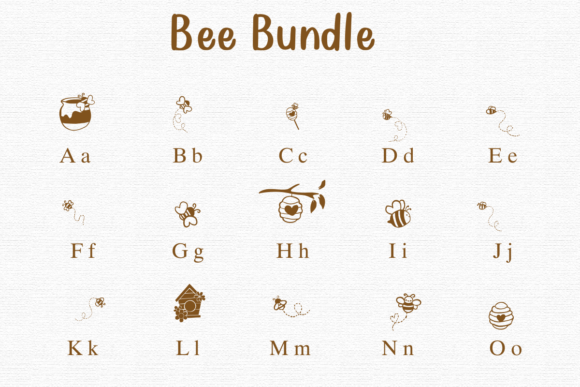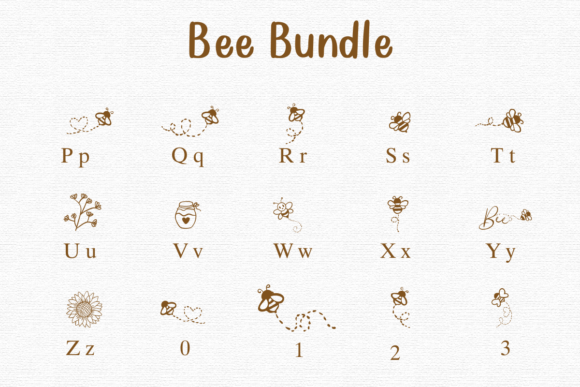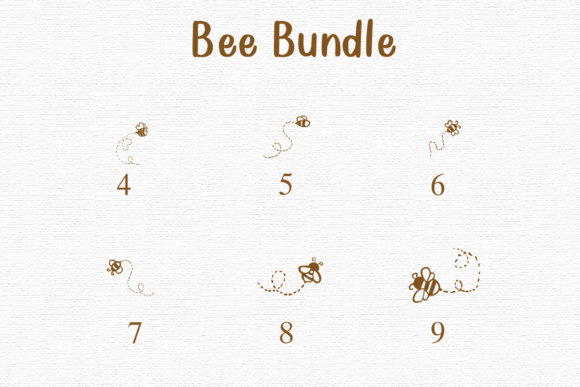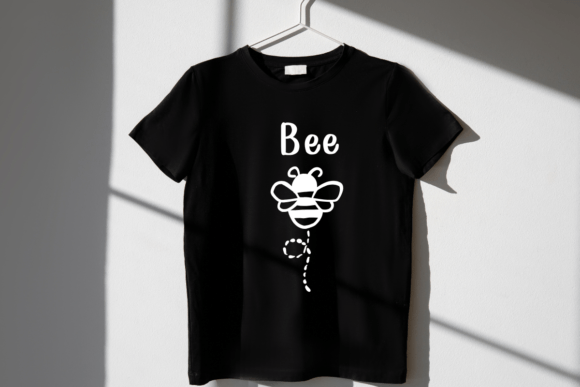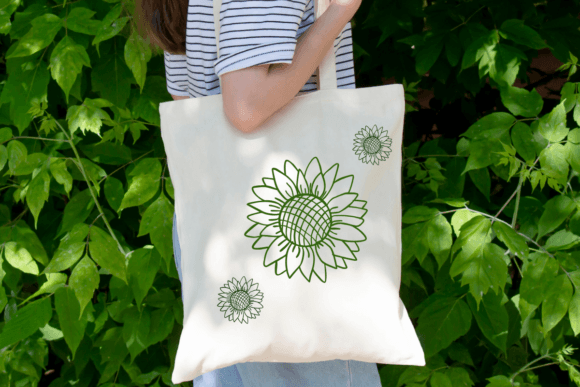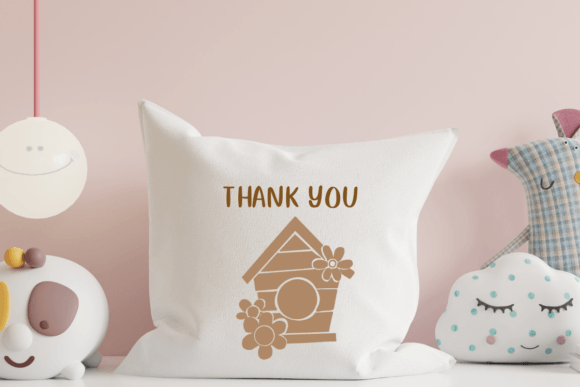
Bee Bundle Font: Add a Sweet Touch to Your Designs with this Playful Dingbat Font
Are you looking for a unique and whimsical font to add a touch of personality to your designs? Look no further than the Bee Bundle Font! This playful dingbat font features a collection of cute, flying bees that are sure to bring a smile to your face. In this article, we’ll take a closer look at the Bee Bundle Font, its features, and how you can use it to elevate your designs.
What is Bee Bundle Font?
Bee Bundle Font is a dingbat font that features a set of adorable flying bees. Each character in this font is a different bee design, ranging from simple and minimalist to more intricate and detailed. The font is perfect for designers, crafters, and anyone looking to add a touch of whimsy to their projects.
Key Features of Bee Bundle Font
- Playful and Whimsical Designs: Each character in the Bee Bundle Font is a unique bee design, featuring cute and flying bees that are sure to add a touch of personality to your designs.
- Dingbat Font: The Bee Bundle Font is a dingbat font, which means that each character is a graphical representation of a bee, rather than a traditional letter or symbol.
- Perfect for Designers and Crafters: The Bee Bundle Font is ideal for designers, crafters, and anyone looking to add a touch of whimsy to their projects, including party decorations, gift tags, and more.
- Easily Customizable: The Bee Bundle Font can be easily customized to fit your design needs, including changing colors, sizes, and more.
How to Use Bee Bundle Font in Your Designs
The Bee Bundle Font is easy to use and can be incorporated into a variety of design projects. Here are a few ideas to get you started:
- Party Decorations: Use the Bee Bundle Font to create custom party decorations, including banners, garlands, and more.
- Gift Tags: Add a personal touch to your gifts with custom gift tags featuring the Bee Bundle Font.
- Social Media Graphics: Use the Bee Bundle Font to create eye-catching social media graphics, including Facebook posts, Instagram stories, and more.
- Stationery and Invitations: Add a touch of whimsy to your stationery and invitations with the Bee Bundle Font.
Tips and Tricks for Using Bee Bundle Font
Here are a few tips and tricks to keep in mind when using the Bee Bundle Font:
- Experiment with Colors: The Bee Bundle Font looks great in a variety of colors, so don’t be afraid to experiment and find the perfect hue for your design.
- Mix and Match: Mix and match different bee designs to create a unique and eye-catching design.
- Use with Other Fonts: The Bee Bundle Font pairs well with other fonts, so feel free to use it in combination with your favorite font.
The Bee Bundle Font is a playful and whimsical dingbat font that is perfect for designers, crafters, and anyone looking to add a touch of personality to their projects. With its cute and flying bee designs, this font is sure to bring a smile to your face and add a touch of sweetness to your designs. So why not give it a try and see how you can use the Bee Bundle Font to elevate your designs?
Whether you’re a seasoned designer or just starting out, the Bee Bundle Font is a great addition to your font collection. So go ahead, get creative, and have fun with the Bee Bundle Font!